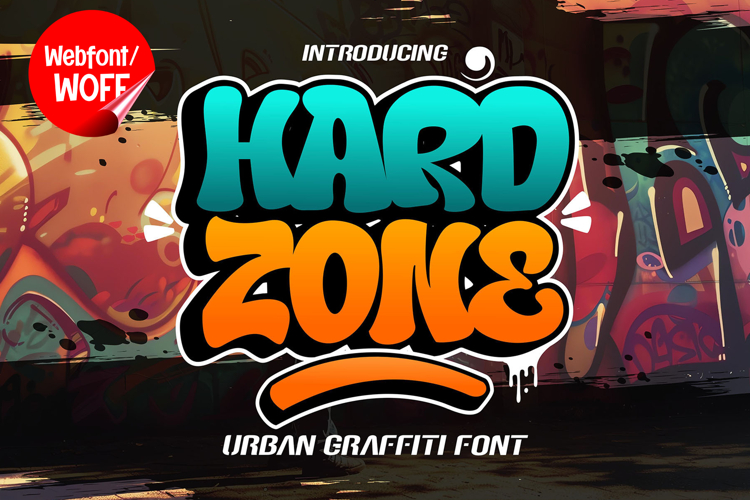
Hard Zone | 3D Layered Graffiti Webfont for Urban Impact
Hard Zone is a 3D layered graffiti webfont created to deliver bold depth and strong urban character for modern website design. Inspired by street art lettering and dimensional graffiti styles, this font combines solid forms with layered construction to create a powerful and dynamic visual presence. It is an excellent choice for projects that require an edgy, attention-grabbing typographic style with a modern digital feel.
Hard Zone includes a complete set of uppercase characters designed with bold graffiti shapes enhanced by layered 3D effects. The dimensional layering adds depth and structure, making each letter stand out with a strong visual impact. These letterforms are ideal for headlines, banners, hero sections, and featured content where a striking and dominant typographic style is needed.
In addition to letters, the font includes numbers and punctuation, allowing flexible usage across various parts of a website. It works well for promotional text, event announcements, product highlights, and navigation accents. Each character maintains a consistent layered graffiti style, ensuring a cohesive and unified visual identity throughout the layout.
With multilingual support, Hard Zone includes a wide range of accented characters, making it suitable for international websites and global audiences. This allows content to be displayed clearly across different languages while preserving the bold graffiti aesthetic.
The 3D layered graffiti style of Hard Zone makes it especially suitable for urban-themed websites, streetwear brands, music platforms, gaming interfaces, and creative portfolios. Its dimensional and energetic design adds intensity and personality, helping websites stand out in competitive digital environments. The layered structure enhances visual depth, making the typography feel more immersive and engaging.
Despite its bold and decorative appearance, Hard Zone is designed with readability in mind. The spacing and proportions of each character are carefully balanced to ensure clarity, particularly in display sizes. This makes it effective for impactful headings and short content elements where both style and usability are important.
Hard Zone is a webfont that combines graffiti aesthetics with layered depth and modern digital performance. Its bold shapes, dimensional structure, and urban influence create a distinctive typographic presence that enhances website design. For projects that require a powerful, creative, and visually engaging graffiti font, Hard Zone offers a strong and effective solution.